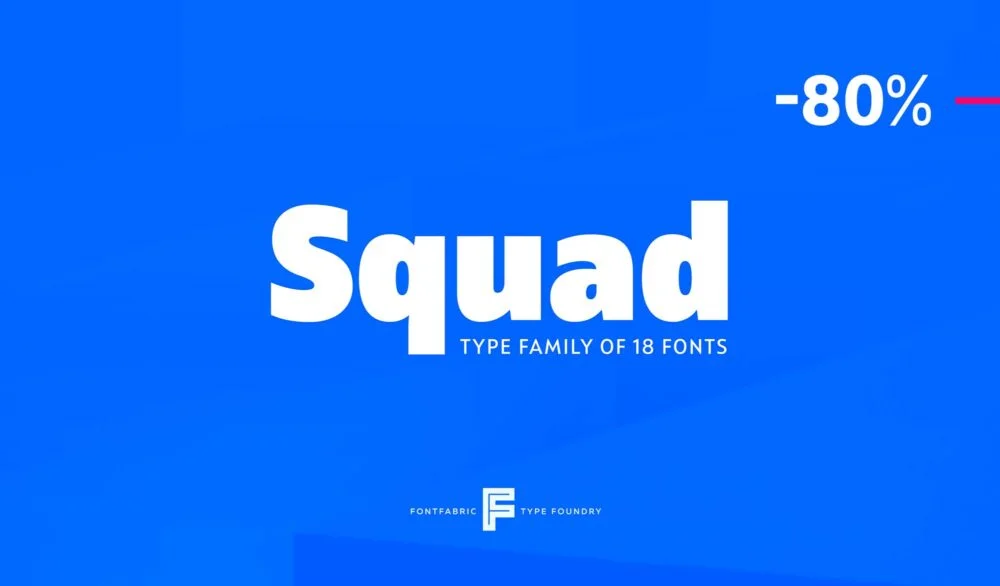
Squad Font
Squad Font is a sans serif font inspired by Adrian Frutiger’s perfectionist style hence it’s perfect for any project design; it’s available in more than 130 languages (including Cyrillic, Greek, and Latin), in 18 styles from thinking to black, and in over 780 glyphs.  It’s such a functional typeface that you can use it for any text, headlines, poster design, branding, web design, and all sorts of advertisements. So whenever you’re working on a new project and don’t know which font to use, just call up your “squad”, they got you covered.